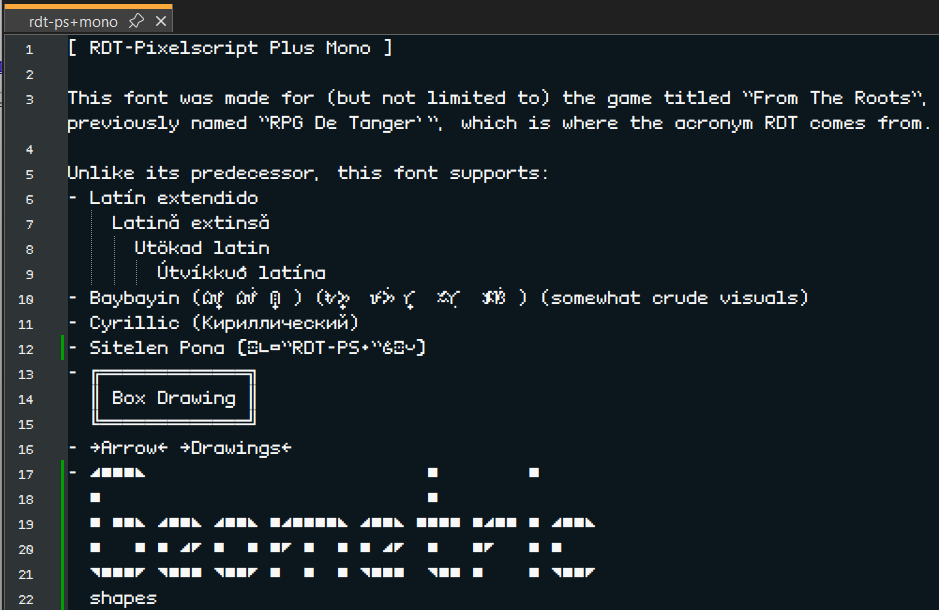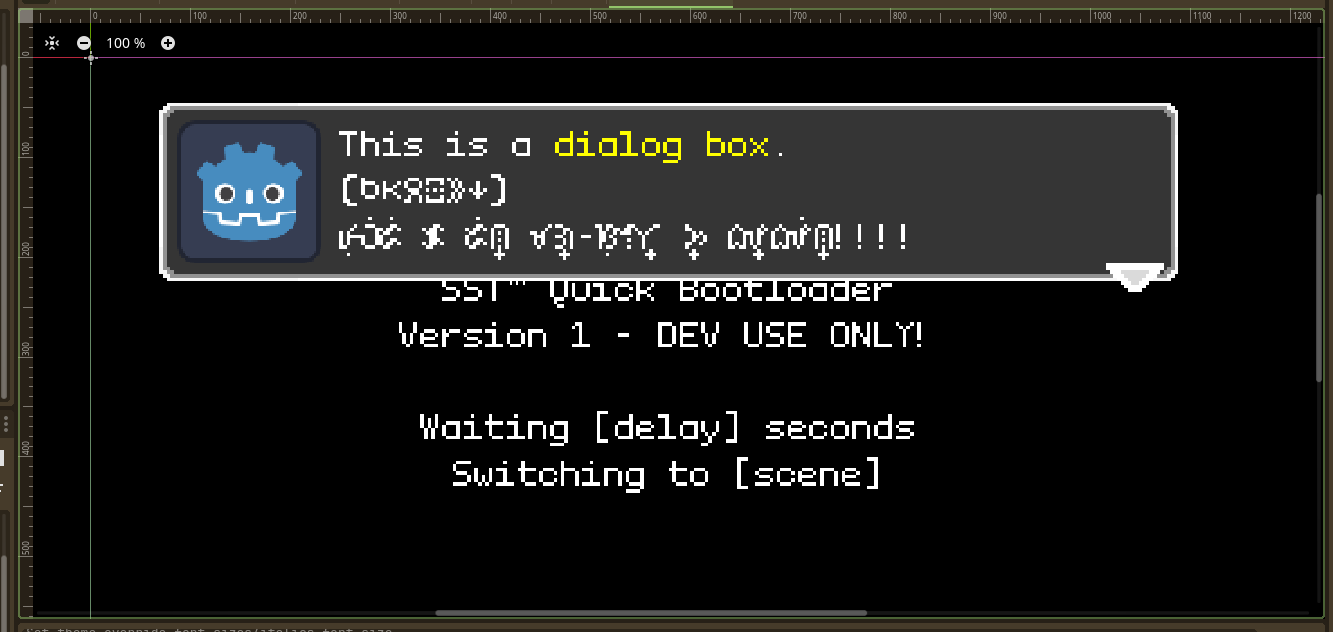
- [08/11/25] Additional support for Extended Latin B + Partial support for Combining Diacritical Marks
- [07/24/25] Block Elements Update
- [07/18/25] Full Thai Script Support
- [06/28/25] Partial Support for Extended Latin B
- [06/26/25] Full Support for Extended Latin A
This font is based on previous versions called:
- [RDT Pixelscript Un-Mono]
- [RDT Pixelscript Mono]
- [RDT Pixelscript]
Those fonts were mostly restricted to a width of 4-5 pixels and a height of 5 pixels, with little to no support for Extended Latin or other Unicode sets.
This new enhanced revision now limits to a 5x7 (for basic letters and numbers) or 5x13 (for everything else) grid supports:
- More Latin (Latin-1 Supplement)
- Extended Latin A
- Essential Cyrillic
- Thai
- Baybayin
- Sitelen Pona (UCSUR-Compliant, Codepoints-Only)
- Box Drawings
- Geometric Shapes Symbols
- Arrow Drawings
Example usage 1
Example usage 2 - Two/Thirds Framework (From The Roots)